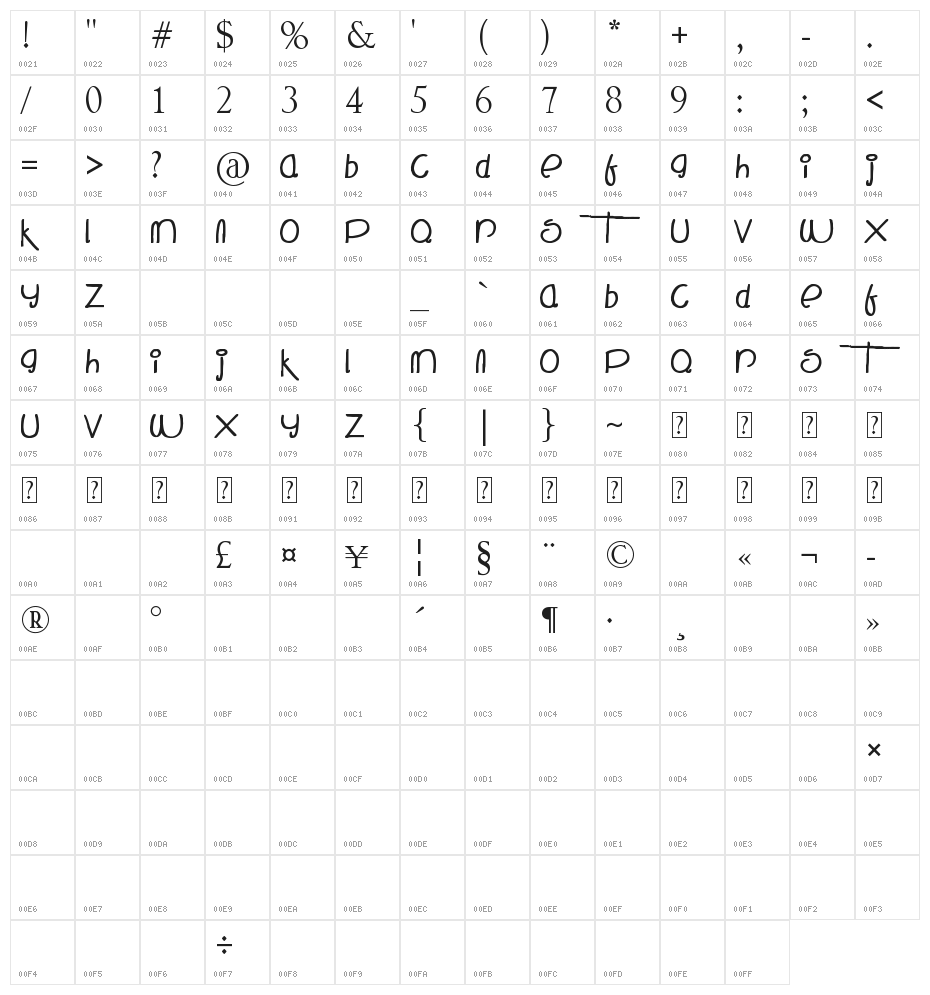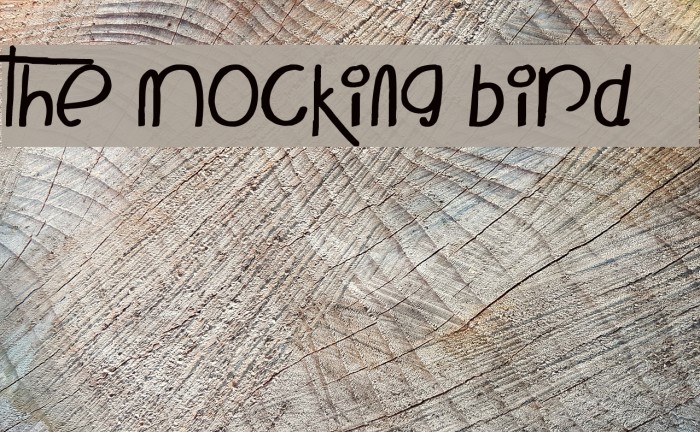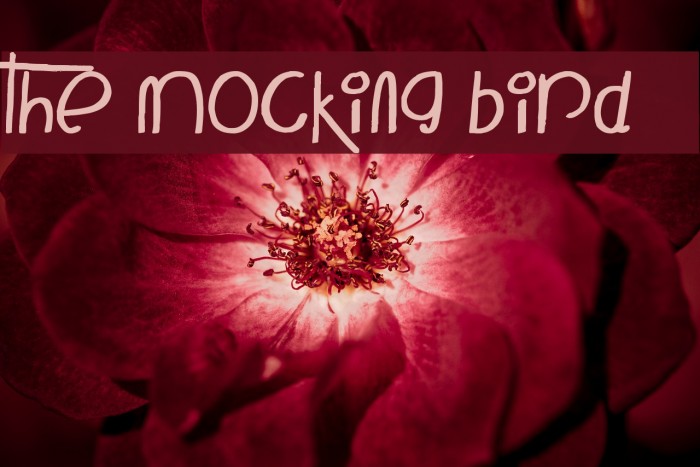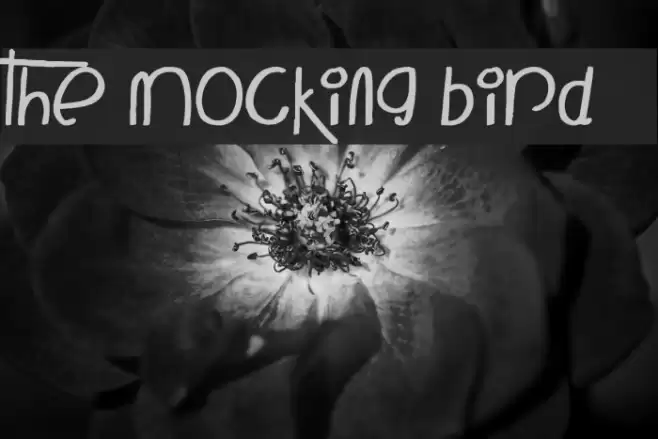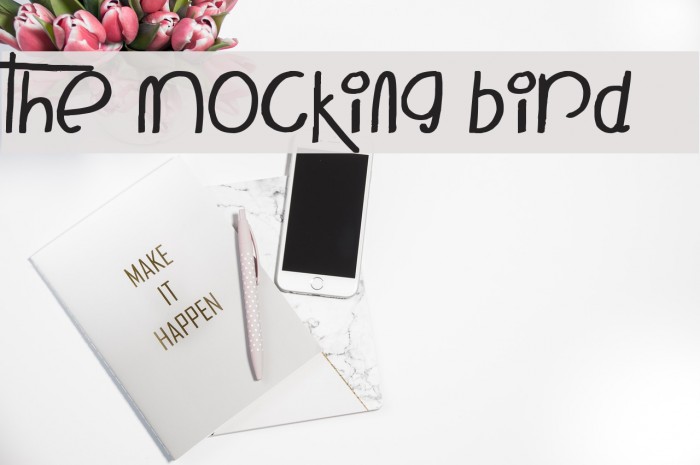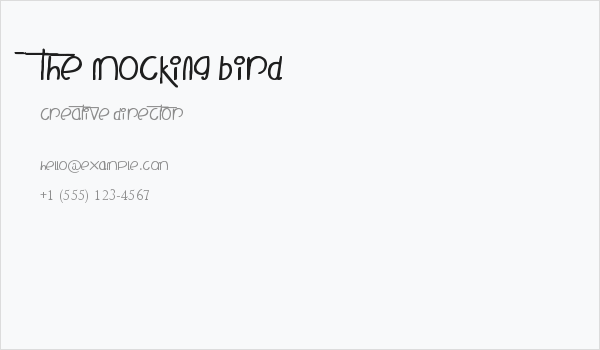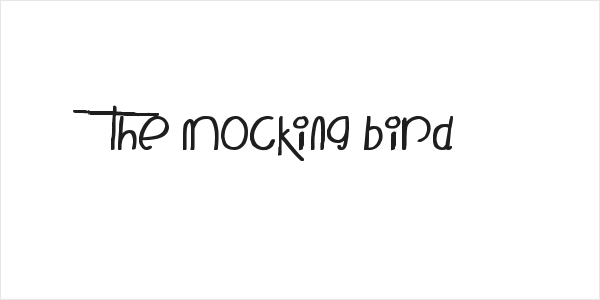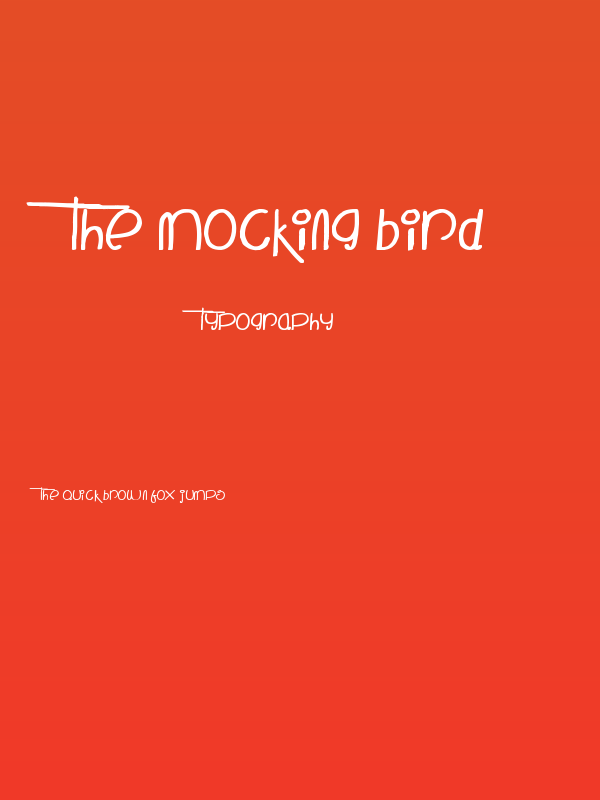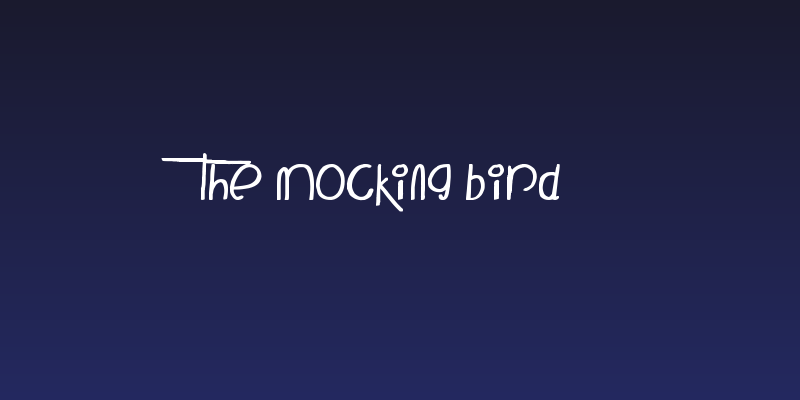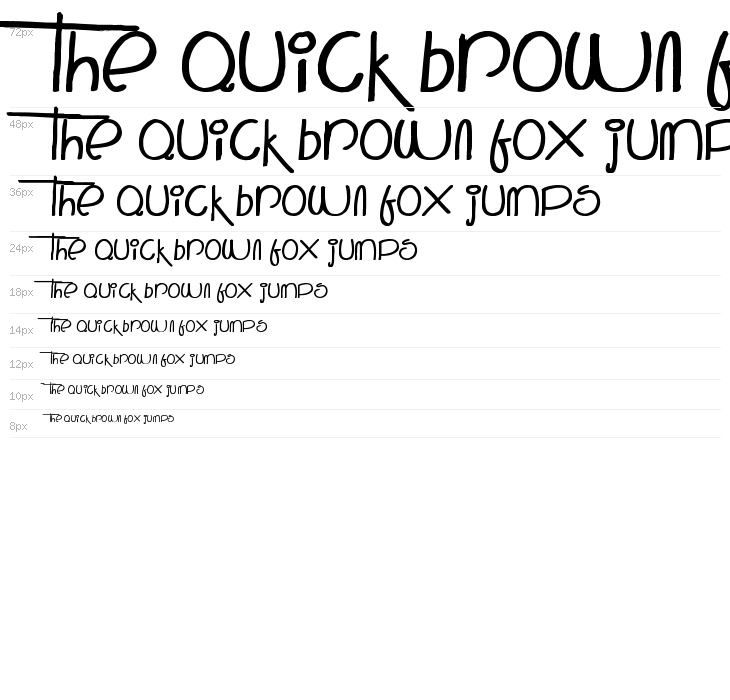
The Mocking Bird Font
The Mocking Bird Description
This font features a playful and whimsical design, characterized by its rounded and slightly irregular letterforms. The strokes are smooth and flowing, giving it a hand-drawn appearance. The uppercase and lowercase letters maintain a consistent style, with some letters featuring unique loops and curves that add to its charm. The numerals are bold and clear, matching the overall aesthetic of the alphabet. Special characters are included, maintaining the same playful style. This font is perfect for projects that require a fun and informal touch.
| Proposed Projects | Ideal for children's books, greeting cards, playful branding, and casual invitations. |